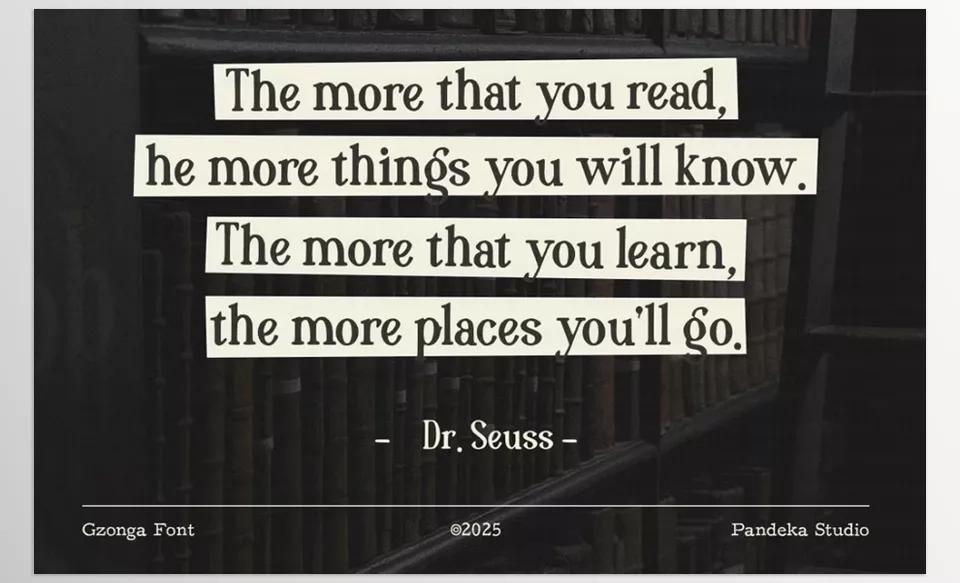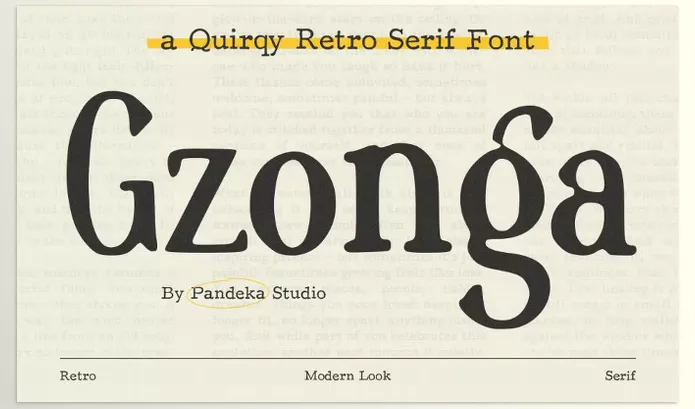
Gzonga Retro Charm Serif is a contemporary vintage display typeface inspired from old prints. With bold designs and elegant curves, Gzonga is sure to compliment book covers and magazine layouts.
Pandeka Studio – Gzonga Retro Charm Serif Features
• Timeless Style: Offered in one Regular style with sleek sophistication.
• Comprehensive Character Set: Consists of upper and lowercase letters, numbers, symbols, and punctuation.
Preview Gzonga Retro Charm Serif
Image 1: Striking nostalgia with literary imaginations enhances creativity for your designs.
Gzonga Retro Charm Serif - Striking nostalgia with literary imaginations enhances creativity for your designs.
Image 2: The luxury and vintage typeface will add to your brand identity.
Gzonga Retro Charm Serif - The luxury and vintage typeface will add to your brand identity.